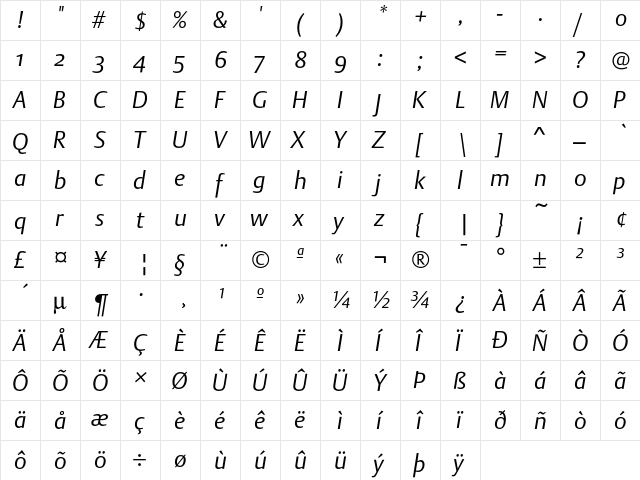
DTLArgoST LightItalic Font Preview
Design Context for DTLArgoST Typeface
DTLArgoST takes a measured approach to typography — its balanced proportions and neutral character make it a reliable workhorse for both digital and print work. Its italic angle brings a sense of urgency and motion to the letterforms. The delicate stroke weight brings airiness and refinement to layouts.
Pro Tip: Try DTLArgoST for annotation and caption copy alongside an upright companion — the contrast in angle creates a dynamic but ordered typographic system.